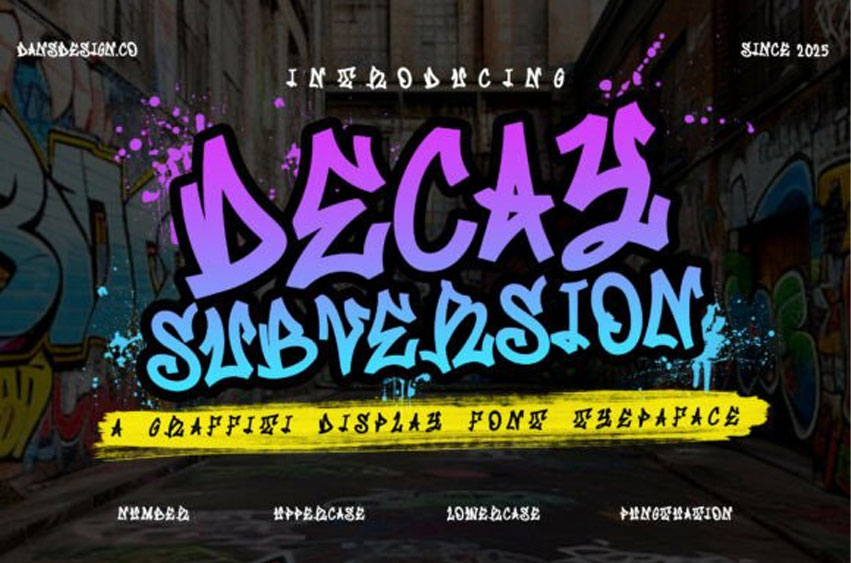
Decay Subversion Font
Decay Subversion Font is a bold and rebellious marker brush graffiti font made for high-impact visuals and expressive urban creativity. Inspired by real street tagging and freestyle graffiti, this font delivers raw energy, hand-drawn aggression, and modern street-style aesthetics—perfect for designs that break the rules and grab attention.
With chaotic brush strokes and rough marker texture, Decay Subversion brings untamed character into your artwork, posters, logos, and digital media.